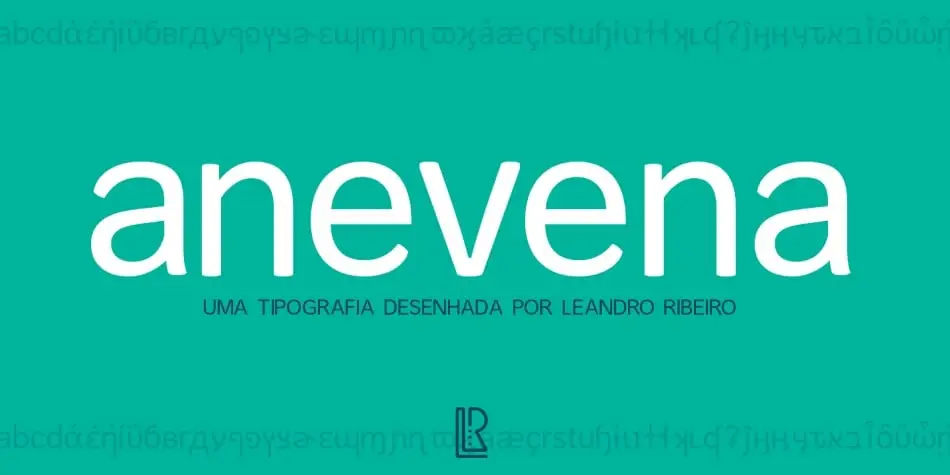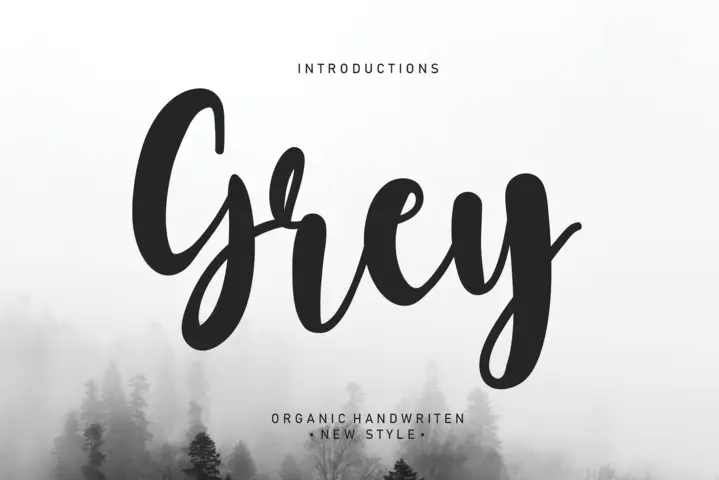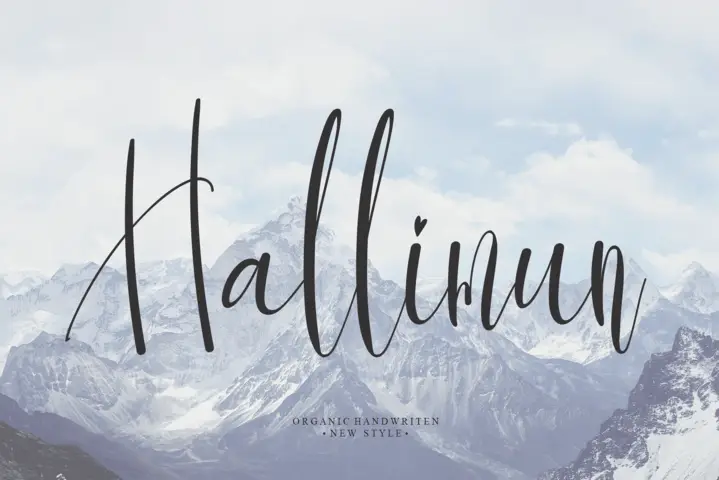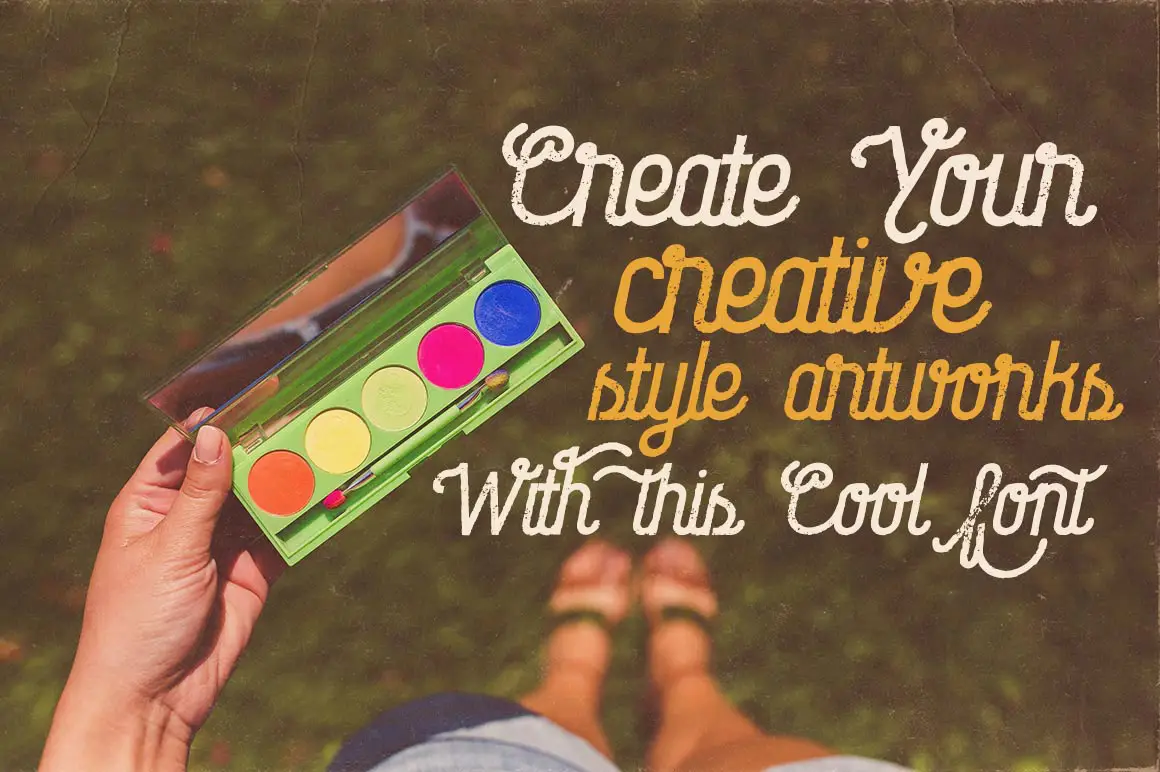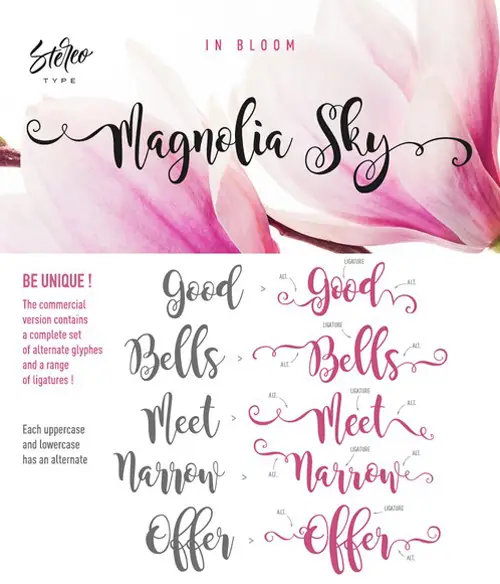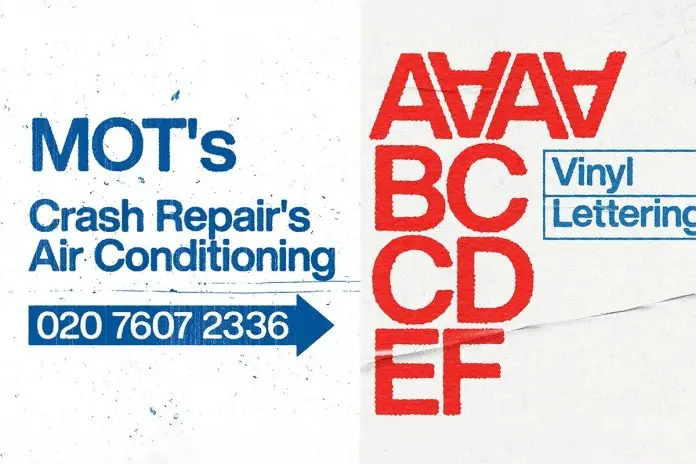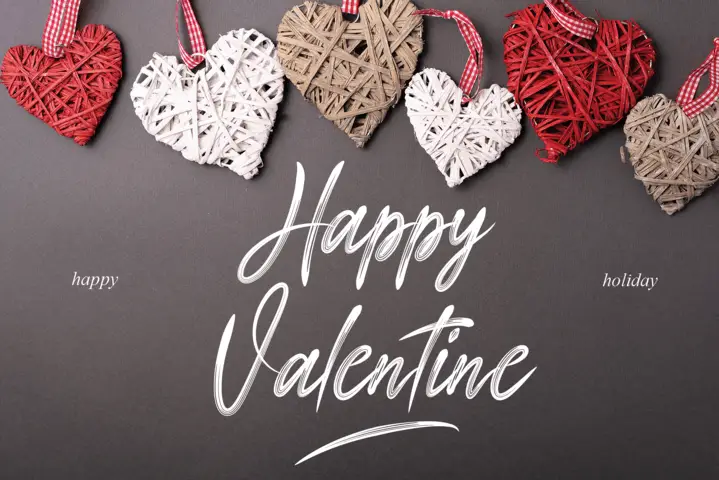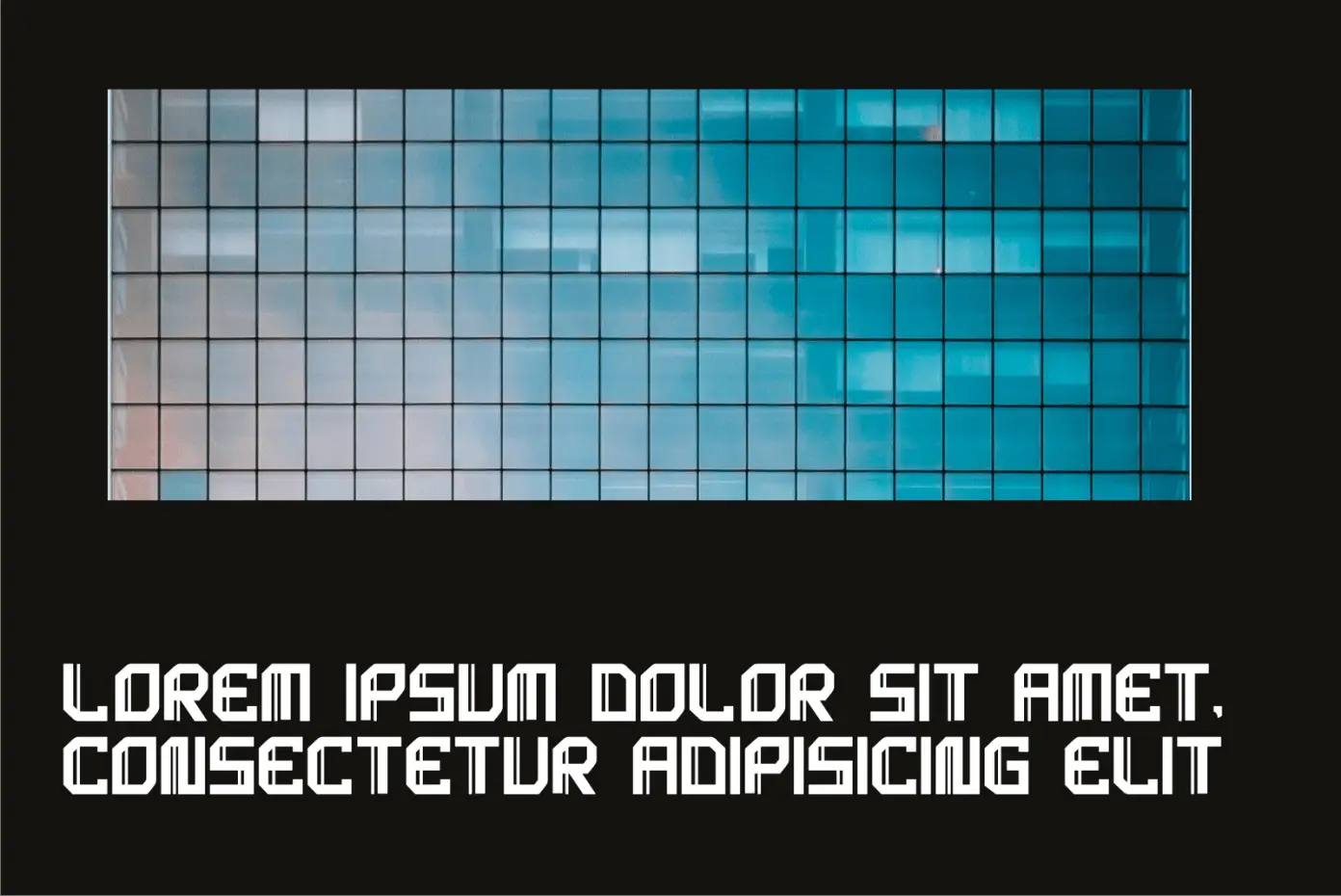
Hey there, creative soul! 🎨✨ Ready to level up your design game? We’re diving into the Brushespack Collection Part 55, and trust me, this is a treasure trove you don’t want to miss. From elegant scripts to bold display fonts and whimsical design assets, this roundup has everything you need to make your projects pop. Let’s get those creative juices flowing! 🚀
Why Use These Design Assets?
Whether you’re crafting a killer brand identity, designing a stunning website, or adding some flair to your print materials, the right font or design element can make all the difference. These assets are not just tools—they’re your secret weapons for standing out in a crowded creative space. Plus, they come with high-res quality and versatile styles that work for both digital and physical projects. 🌟
Top 20 Digital Fonts & Design Assets Picks
Ayalda Script 5W8Xkd
Get ready to fall in love with this beautifully crafted script font! Ayalda Script brings elegance and sophistication to any project with its modern calligraphic style. Perfect for branding, invitations, or social media graphics 💫
Aprillia
Aprillia is a versatile digital design asset that’s an absolute must-have! With high-resolution elements and a variety of styles, it’s perfect for branding, web design, and print projects. Your creative toolkit just got a serious upgrade! 🌸
Stase Font By Baptiste Bernazeau
Clean, geometric, and oh-so-modern! Stase Font by Baptiste Bernazeau brings a sophisticated edge to your projects with its multiple weights and styles. Ideal for minimalist branding and sleek web designs 🖤
Anevena Font Cyrillic
This beautifully crafted typeface is designed specifically for Cyrillic scripts, combining elegance with readability. If you’re working on multilingual projects or Eastern European designs, this one’s a game-changer! 🇷🇺✨
Zoo Font Pair (C) Blazetype-Extended Latin
Two complementary typefaces in one amazing set! The Zoo Font Pair offers an extended Latin character set and a bold display style. Perfect for headlines and creative layouts that need a unique twist 🦓
Ultraprint Font
Ultraprint is your go-to for modern branding and digital communication! With multiple weights and a clean, contemporary aesthetic, it works beautifully for logos, web design, and user interfaces. A true all-rounder! 🖨️
Sparko — By Locomotype
Sparko brings a unique, modern flair to your creative projects! Packed with high-res elements perfect for branding and marketing materials, this asset collection will make your designs truly sparkle 🌟
Reclamo
Reclamo is a versatile digital design asset crafted for modern creatives like you! With high-res graphics and customizable templates, it seamlessly integrates into your favorite design software. Get ready to create magic 🔮
Sunkiss Farmhouse Display Font
This charming display font blends modern and vintage styles for a rustic, farmhouse aesthetic. Perfect for stunning headlines, logos, and branding that feels warm and inviting 🌻
Spirit Of Montana
Capture the wild beauty of the great outdoors with this stunning collection! High-res graphics, illustrations, and textures evoke the spirit of adventure. Perfect for nature-inspired projects 🏔️🌲
Sukoder Display Font
Make your projects instantly stand out with the captivating Sukoder Display Font! Its unique character and stylish flair are perfect for branding, logos, and web design. Bold and unforgettable 💥
Stay In Villa Brush Font
Add a personal, handcrafted touch to your designs with this fluid brush script font! With beautiful strokes and charming character, it’s ideal for invitations, quotes, and artistic projects 🎨✍️
Printvetica Display Font
Striking and modern, Printvetica’s geometric design makes a bold statement! With multiple weights and complete character sets, it’s a powerhouse for eye-catching headlines and branding 📰✨
Greevita Script Font
Elegance meets modernity in the flowing Greevita Script Font! With multiple weights and a beautiful script style, it’s perfect for adding a personal, artistic flair to any design project 🌊🖋️
Grey Script Font
Sophisticated and modern, the Grey Script Font adds a touch of class to any project. Its flowing, elegant design works wonders for branding, invitations, and social media graphics 🖤✨
Hallimun Script Font
Elegant, artistic, and full of flowing charm! Hallimun Script Font is perfect for branding, logos, and invitations. Its multiple weights give you the flexibility to create truly stunning compositions 🌸
Holiday 2
Bring some festive cheer to your projects with Holiday 2! This collection of high-quality design elements is perfect for seasonal themes, greeting cards, and social media posts. Get into the holiday spirit! 🎄🎉
Hater Font
Make a bold statement with the Hater Font! Its expressive, unique character shapes and strong presence are perfect for branding, logos, and headlines that demand attention. Don’t be afraid to stand out 😤🔥